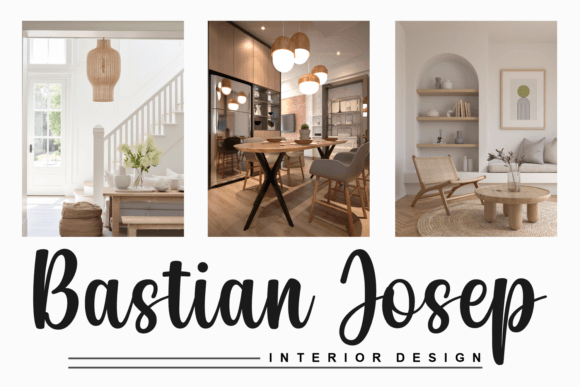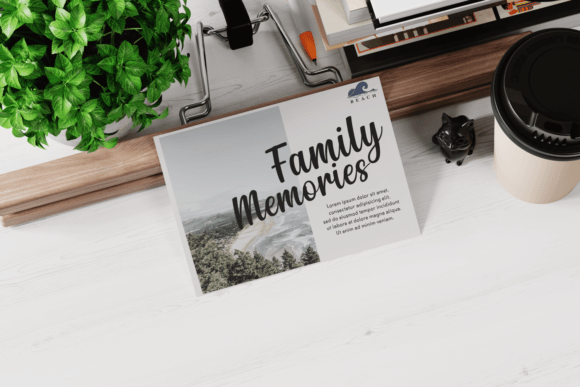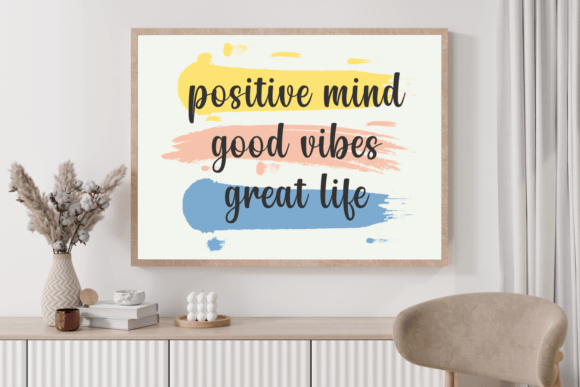
Introduction to Makin Font
Have you ever stared at a blank canvas, feeling the pressure to create something truly unique and captivating? That’s exactly what happened to me the last time I embarked on a creative project. I wanted to add a touch of elegance and sophistication, but nothing seemed to fit the bill. That’s when I discovered the Makin Font – a beautiful and elegant script font that transformed my design in an instant.
Key Features of Makin Font
- Unique, handcrafted font style with a transparent background, ideal for graphic designers
- Large character set with over 200 glyphs, including Latin, Cyrillic, and Greek alphabets
- Perfect for creating visually appealing designs, logos, and typography for various creative projects
Honest Review: Makin Font
Makin Font has been a game-changer for my recent creative project. As a designer, I’m always on the lookout for high-quality design resources that can elevate my work. Makin Font delivers, with its beautiful, elegant script font that adds a touch of sophistication to any design.
What works well: ✨ I love that Makin Font comes with a transparent background, making it super easy to customize and pair with any color scheme. The font itself is highly versatile and can be used for a wide range of creative projects, from wedding invitations to branding materials.
Some limitations: ⚠️ While Makin Font is a great addition to any design library, I’ve found that it can be a bit finicky when used in large blocks of text. Additionally, the font file sizes can be a bit large, which may be a concern for designers working with tight file size constraints.
- High-quality, elegant script font
- Great for creative projects, branding materials, and more
Tips for Getting the Most Out of Makin Font
For the best results, use Makin Font in combination with other high-quality design resources. Experiment with different font sizes, styles, and colors to find the perfect look for your creative project.
Makin Font is a versatile font that can be used in a variety of creative projects, including logos, branding materials, and social media graphics. Its transparent background and high quality make it a great choice for projects where a clear and crisp font is needed.